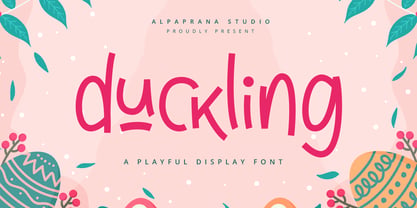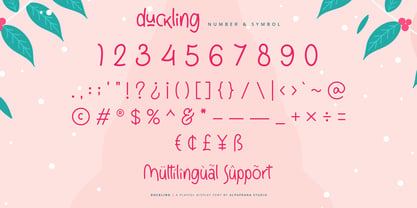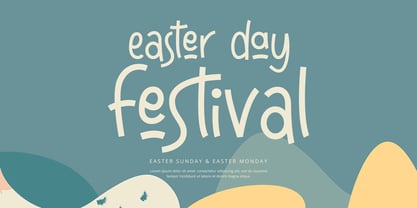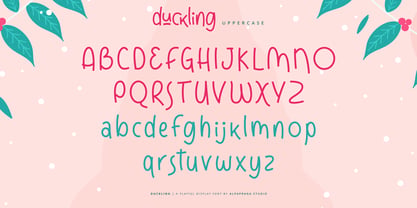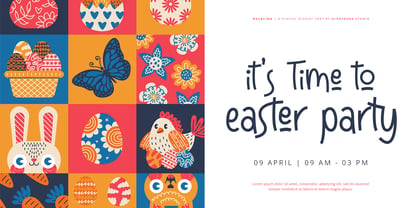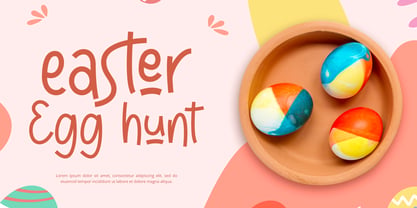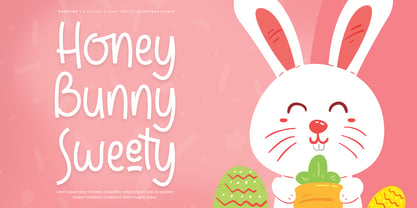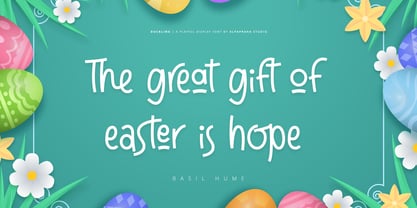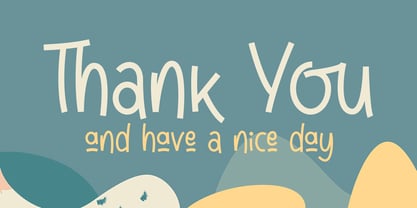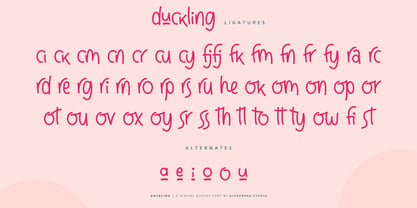
Duckling
von Alpaprana
Die Schriftfamilie Duckling wurde von Nadia Salsabila entworfen und von Alpaprana veröffentlicht. Duckling enthält 1 Stile. Mehr über diese Familie
Duckling is a playful display font with fun and playful feels. It will be perfectly used for Branding, Logo Design, Lettering, Logotype, Clothing, Poster, magazine, packaging, posters, shopping bags, t-shirts, book covers, photography, special events and other design project.
Designer: Nadia Salsabila
Foundry: Alpaprana